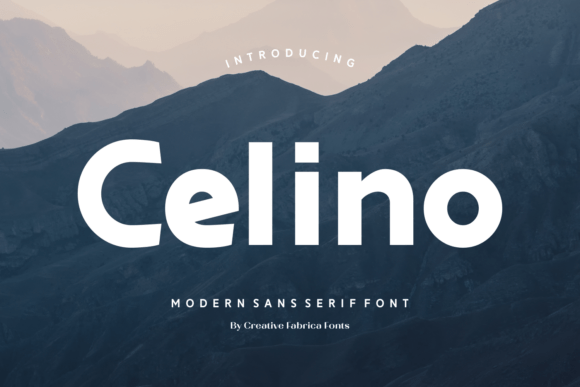
Celino Font: Elevate Your Designs with a Modern Twist
As designers, we’ve all been there – staring at a blank page, struggling to find the perfect font to bring our ideas to life. The search is over, thanks to the introduction of Celino Font, a stunning modern sans serif font that’s sure to make a statement. This beautiful font features strong, rounded, and geometric letterforms that create an impactful yet clean aesthetic, perfect for modern branding, headlines, and posters.
Celino Font is more than just a pretty face – it’s a valuable tool for designers looking to add a touch of sophistication and elegance to their work. With its versatility and clean lines, it’s the perfect addition to any design project, from logos and business cards to social media graphics and advertising campaigns.
Celino Font Key Features
- Unique Characteristics: The font features a unique blend of modern and classic elements, with intricate details and subtle flourishes that set it apart from other sans-serif fonts.
- Language Support: Celino Font supports a wide range of languages, including Latin, Cyrillic, and Greek alphabets, making it a versatile choice for global applications.
- Font Weight: The font comes in various weights, from Light to Extra Bold, allowing users to choose the perfect weight to match their design needs.
Celino Font Review
I recently had the chance to work with the Celino Font, and I must say it’s an interesting addition to any design project.
- Unique style: Celino Font offers a distinctive look that sets it apart from more common fonts.
- Good for titles: Its bold and playful nature makes it perfect for headlines and titles.
- Supports various languages: The font includes a wide range of language support, making it a great choice for multilingual projects.
- Limited font sizes: Celino Font may not be as readable at smaller font sizes, which could impact its usability.
- Not ideal for body text: The font’s unique style might be overwhelming for large blocks of text, making it better suited for short passages or titles.
Celino Font is a great choice when you want to add some flair to your design. While it may have its limitations, it’s perfect for projects where you need a bold and eye-catching title or heading. Just be mindful of its readability at smaller font sizes and use it sparingly for body text.
Getting the Most Out of Celino Font
For optimal results, use Celino Font in combination with bold and italic styles to create visually appealing headings and titles. You can also experiment with different font sizes to create a balanced and harmonious design.
Celino Font is suitable for various design projects, including:
– Branding and identity design
– Print materials (business cards, brochures, etc.)
– Digital designs (social media graphics, presentations, etc.)